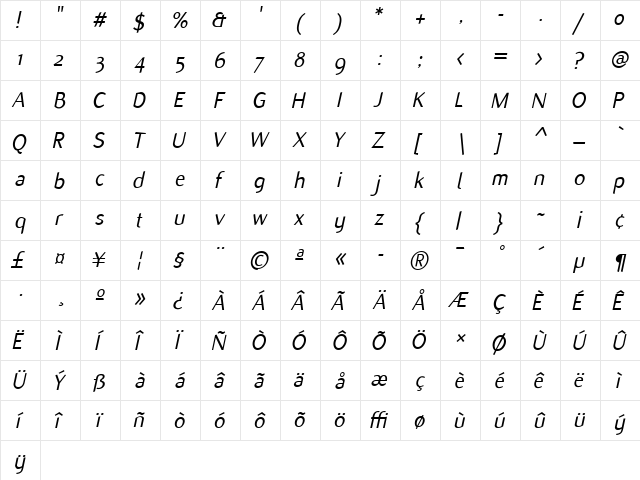
Flux Italic
Design Context for Flux Typeface
Flux is a composed and adaptable typeface that performs quietly and consistently across a wide range of design contexts. The dynamic lean of this cut emphasises speed and emphasis in any layout.
Pro Tip: Try Flux for annotation and caption copy alongside an upright companion — the contrast in angle creates a dynamic but ordered typographic system.